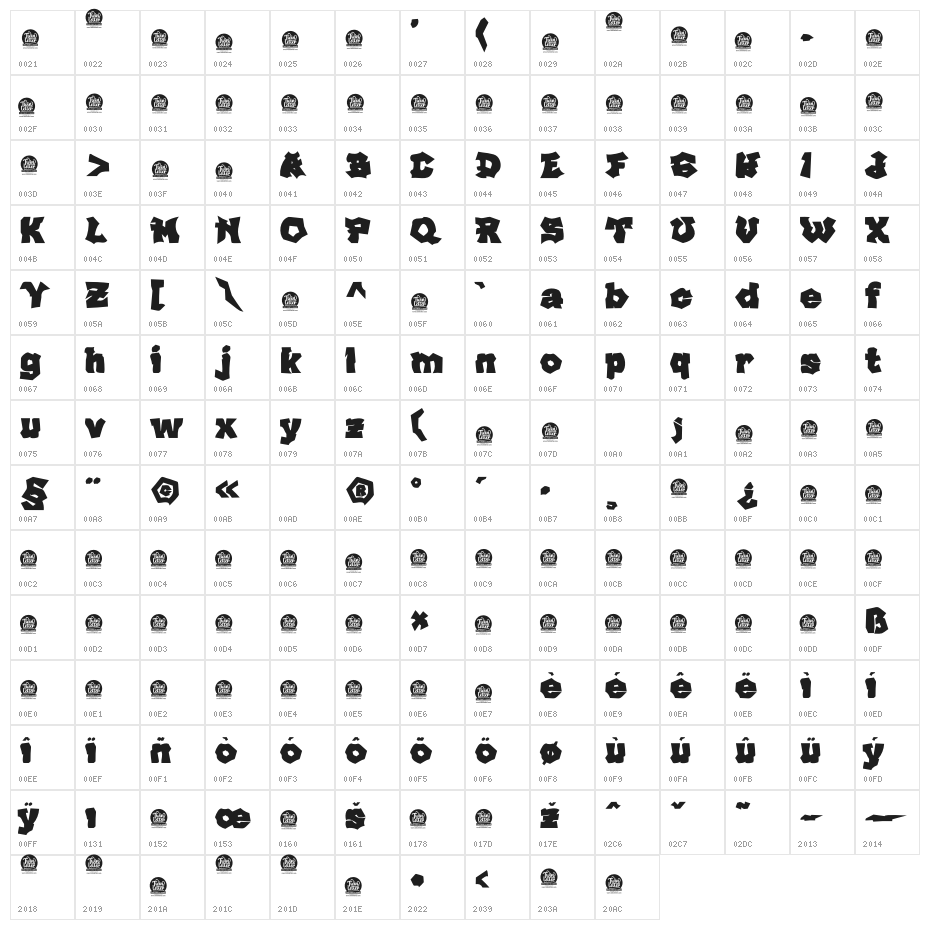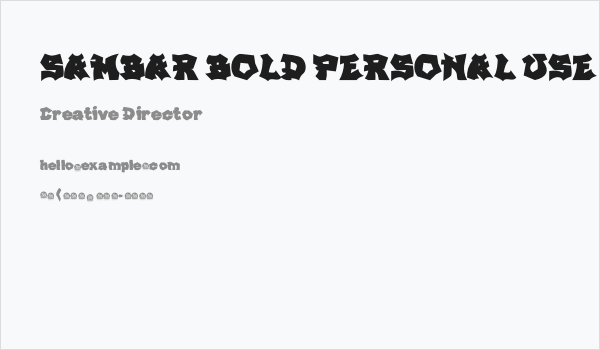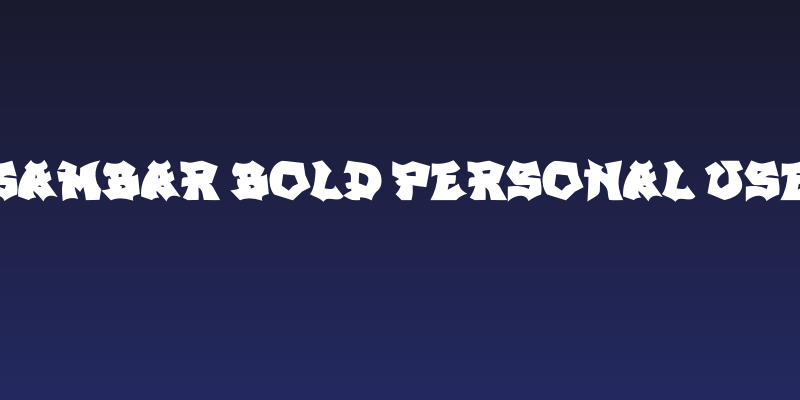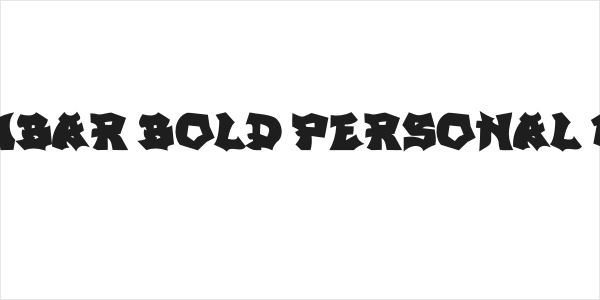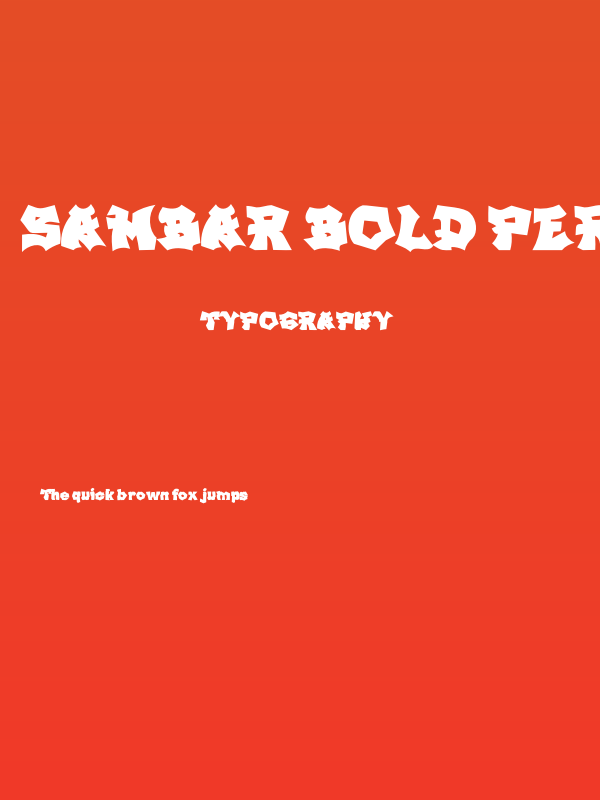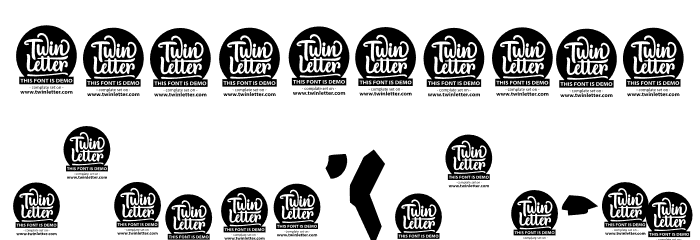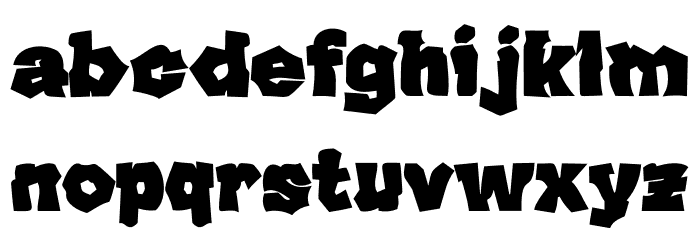
SAMBAR BOLD PERSONAL USE Font
SAMBAR BOLD PERSONAL USE Description
This font features a bold and dynamic style with a strong presence. The characters are crafted with sharp, angular edges and a slightly irregular form, giving it a unique, edgy appearance. The uppercase and lowercase letters maintain a consistent weight, emphasizing the boldness throughout the typeface. The numbers and special characters follow the same design principles, ensuring uniformity across all elements. This font's distinctive style makes it stand out, suitable for eye-catching designs.